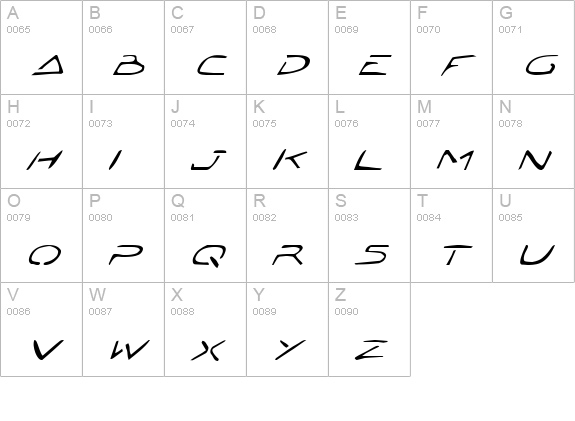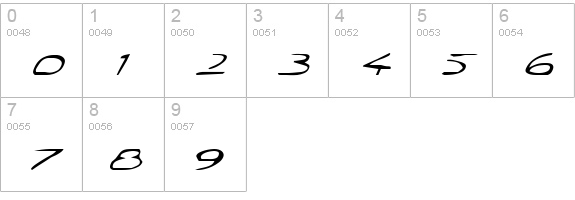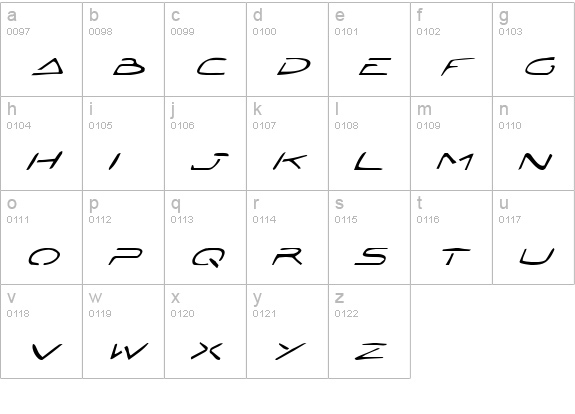
Jetta Tech Italic is a distinctive, italic variant in the Jetta typeface family \xE2\x80\x94 well suited to design and typography projects.
Introducing Jetta Tech Italic font, a sleek and modern typeface designed for tech-savvy individuals and creative projects. With its sharp angles and futuristic vibe, Jetta Tech Italic exudes a sense of innovation and sophistication. This font is perfect for branding, web design, and digital applications where a contemporary look is desired. What's more, Jetta Tech Italic font is available for free download at FontsMarket.com. Take advantage of this stylish typeface to elevate your designs and make a bold statement. Stand out from the crowd with Jetta Tech Italic font and let your creativity shine.